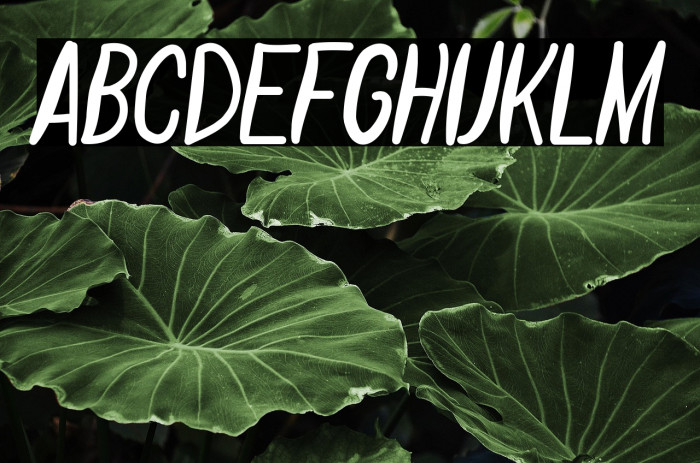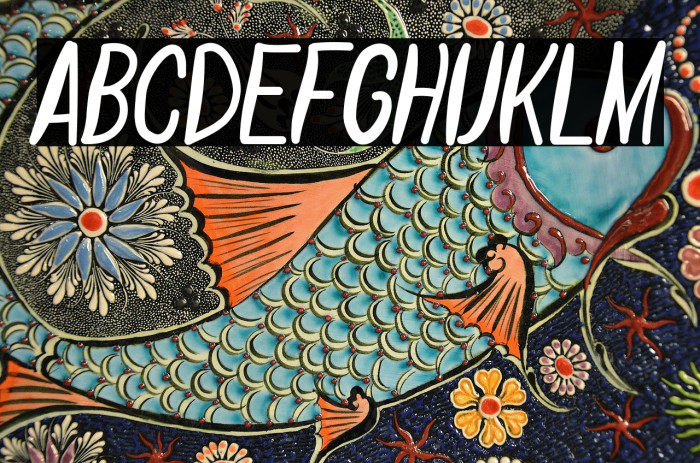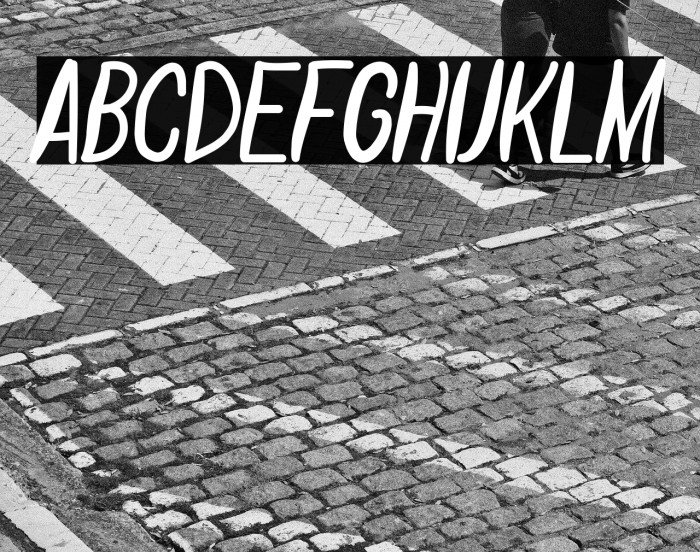
Verona Font
Verona Description
This font features a dynamic and energetic handwritten style, characterized by its fluid and slightly slanted letterforms. The strokes are consistent in thickness, providing a uniform appearance across all characters. The uppercase and lowercase letters maintain a cohesive look, with rounded edges and a playful, casual vibe. Numerals are clear and easy to read, matching the overall aesthetic. Special characters are well-integrated, ensuring versatility in various design applications. The font's lively nature makes it suitable for projects that require a personal touch or an informal tone.